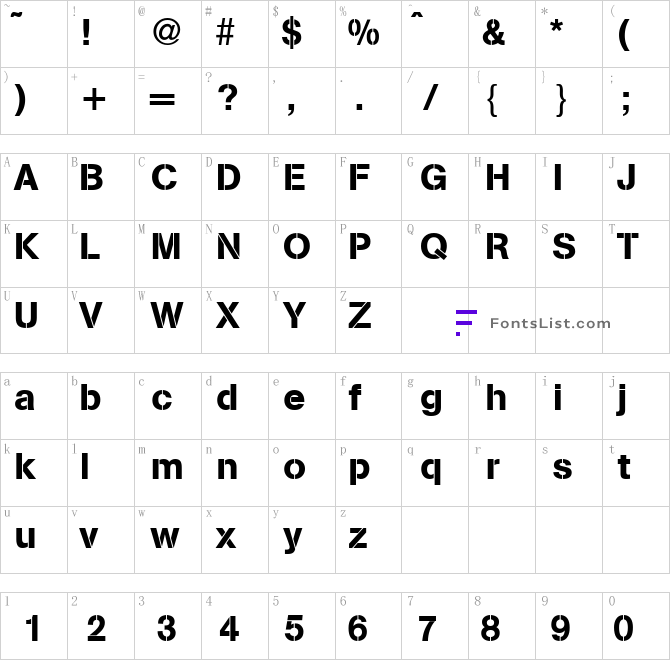
AbsolutDB-Normal.ttf is a very beautiful artistic font, AbsolutDB-Normal.ttf is widely used in the design and printing of various books and pictures,AbsolutDB-Normal.ttf has a strong visual impact,AbsolutDB-Normal.ttf is a commonly used font in newspapers, magazines and books, and is used in posters, e-commerce Poster design, store design, logo design, font design and other fields.AbsolutDB-Normal.